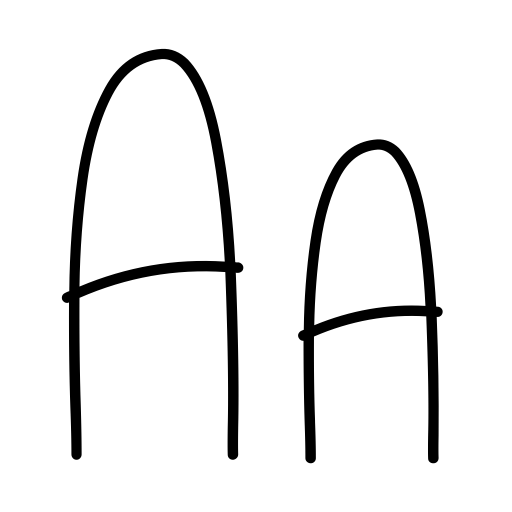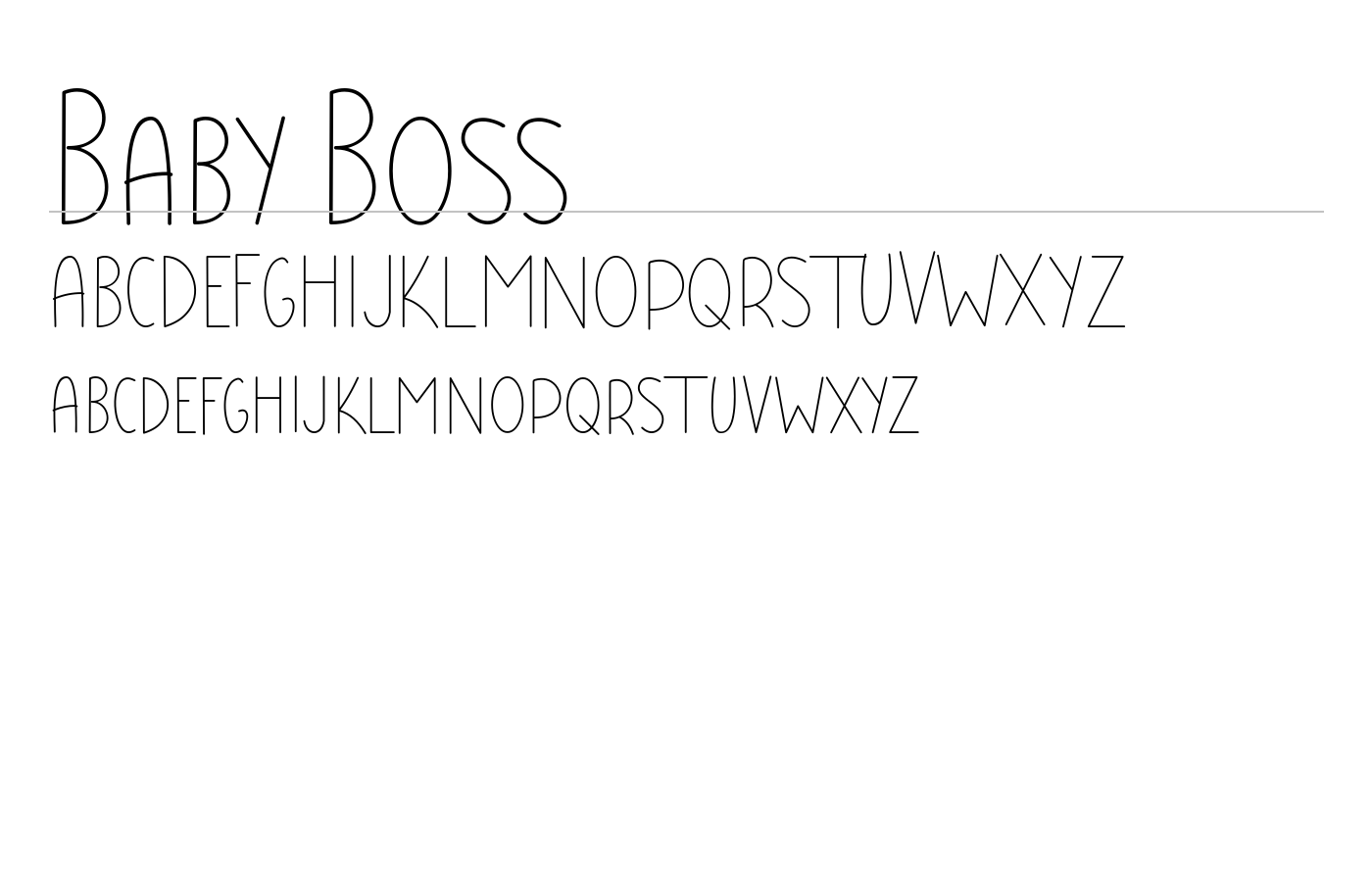
Baby Boss is a tall, slender sans serif font with a playful, hand-drawn feel. Its fine lines and irregular shapes give it a casual, whimsical personality, making it ideal for creative projects, children's branding, and informal headlines where a lighthearted and unique style is desired.
Baby Boss Font